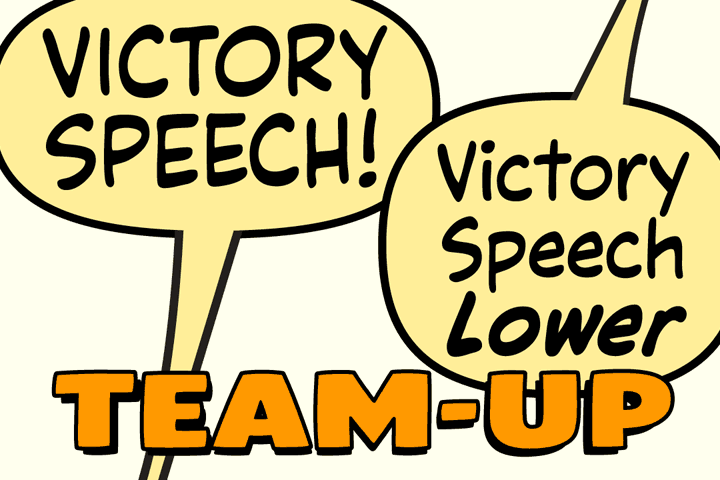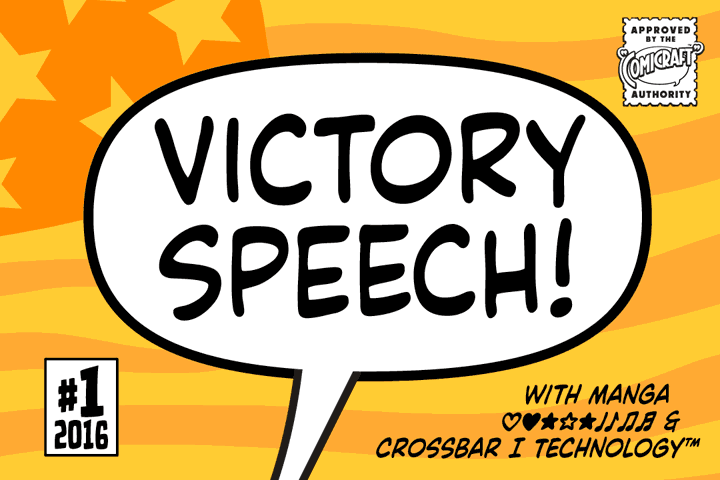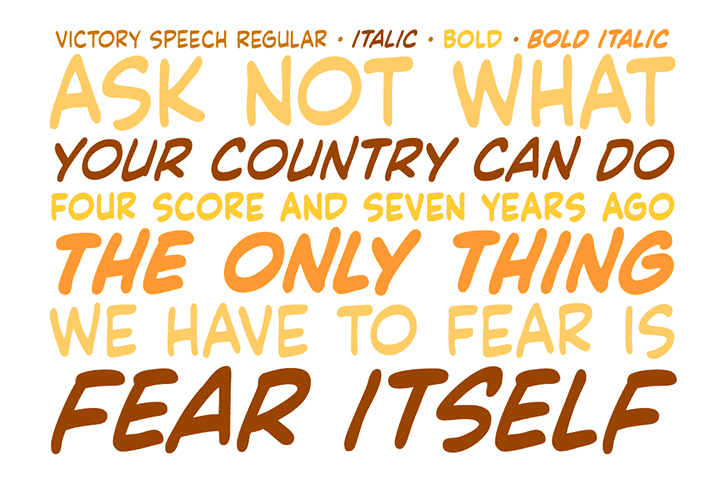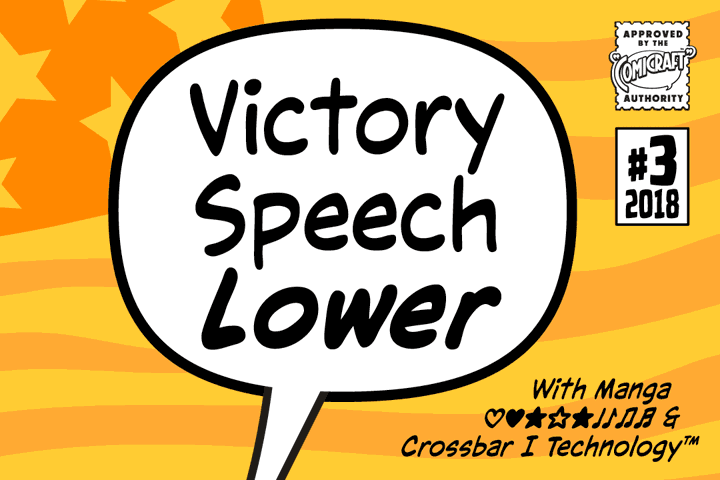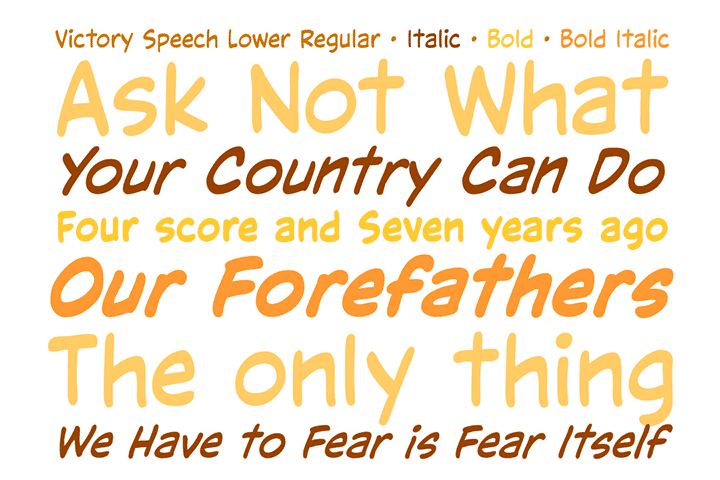
Victory Speech Team-Up
First they fight, then they team up: Get both versions of VICTORY SPEECH – all-uppercase with automatic alternates, and upper & lowercase – for one low price!
Both versions have international language support, Manga characters, and our ever-popular Crossbar I Technology™.